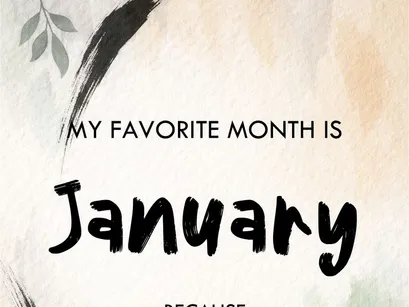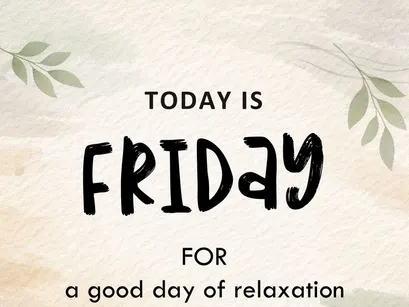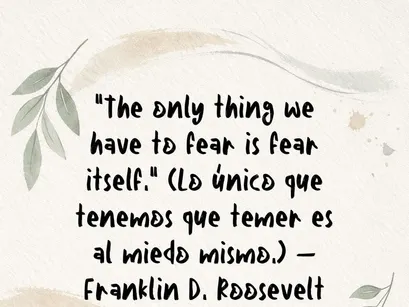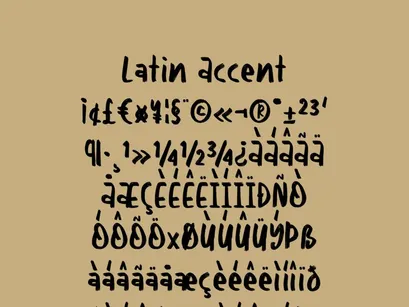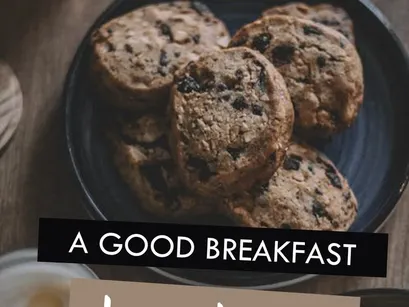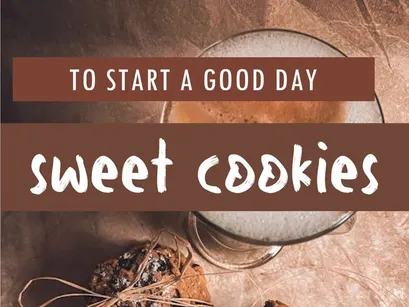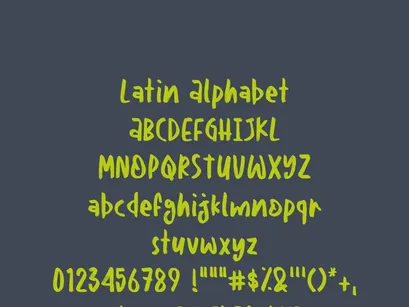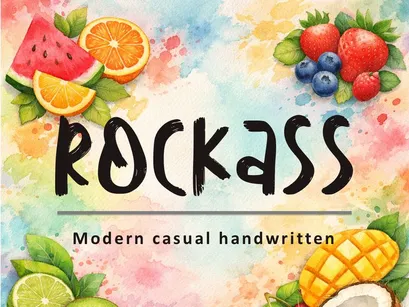
Rockass is a modern, casual handwritten typeface inspired by free and expressive writing. Its organic and slightly irregular strokes convey a handcrafted and natural feel, perfect for creative projects, motivational quotes, packaging, branding, or visual publications.
It features full Latin characters and accents, ideal for texts in English, Spanish, and other European languages.
Modern, fresh, and natural style
Handwritten style with personality